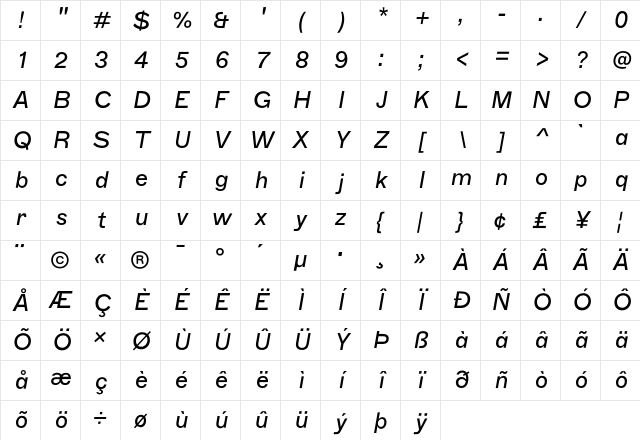
Gothic Bold
Foundry: Fabian Harb
Design Context for Gothic
Gothic takes a clean, functional approach - its unadorned letterforms prioritise legibility and work reliably across screen and print environments. Its bold stroke weight gives it real presence on the page.
Font Pairing: Use Gothic for headlines alongside a lighter-weight sans or serif for body copy to establish clear visual hierarchy.
Pro Tip: Use Gothic for UI labels, navigation, and short-form body copy where clean legibility is the priority.